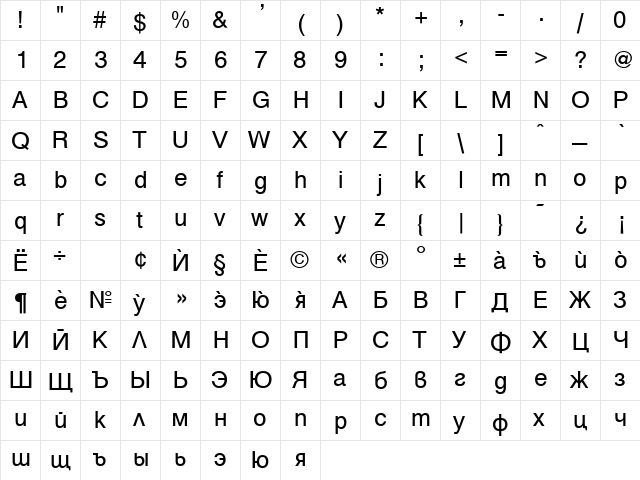
Helen Normal
Design Context for Helen Typeface
Helen is a composed and adaptable typeface that performs quietly and consistently across a wide range of design contexts.
Pro Tip: Pair Helen with a font of contrasting weight or personality to build a more expressive typographic hierarchy.